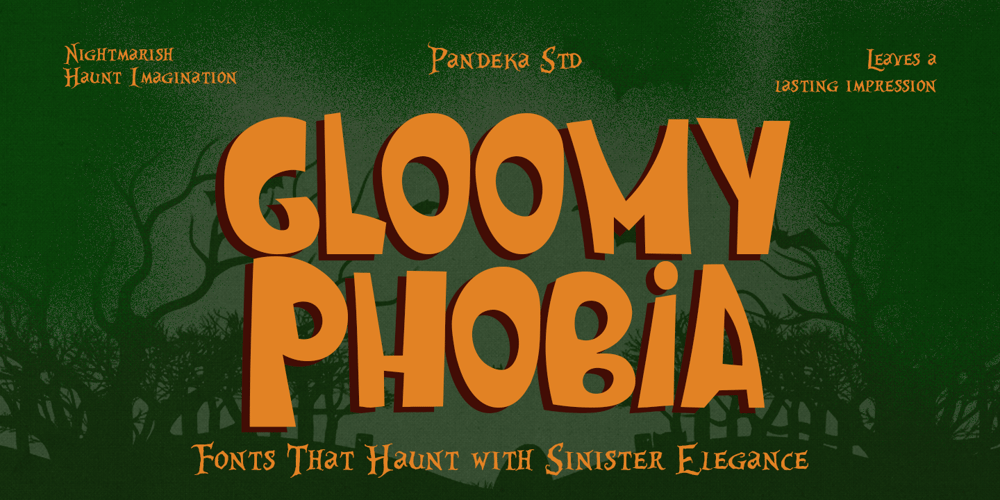
Gloomy Phobia Font Family was designed by Sagara Nararya and published by Pandeka Studio. Gloomy Phobia contains 3 styles and family package options. Introducing Gloomy Phobia – Horror Display FontGloomy Phobia is creeping towards you, imagine a desolate, eerie forest cloaked in fog, the distant crack of twigs, whispers echoing in the cold airGloomy Phobia comes in 3 haunting styles: Regular, Outline, and Extrude, giving your designs the extra depth and sinister atmosphere they need to evoke terror in your audienceWhat’s Included? Gloomy Phobia Main Files Regular, Outline and Extrude Style Unique letterforms Works on PC & Mac Simple Installations Accessible in the Adobe Illustrator, Adobe Photoshop, Microsoft Word even work on Canva PUA Encoded Characters Fully accessible without additional design software. Language Support: Danish, English, Estonian, Filipino, Finnish, French, Friulian, Galician, German, Gusii, Indonesian, Irish, Italian, Luxembourgish, Norwegian Bokmål, Norwegian Nynorsk, Nyankole, Oromo, Portuguese, Romansh, Rombo, Spanish, Swedish, Swiss-German, Uzbek (Latin)Feel free to follow, like and share. Thanks so much for checking out my shop!Have a great day!Pandeka Studio